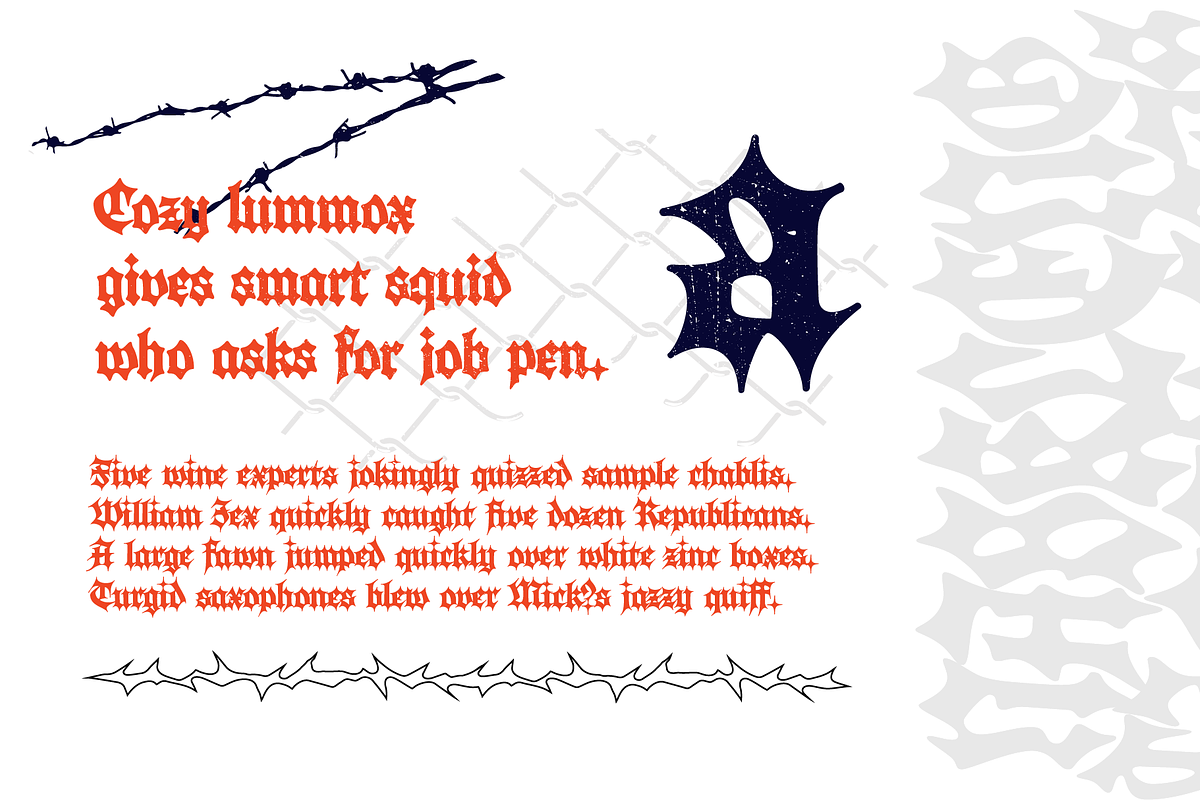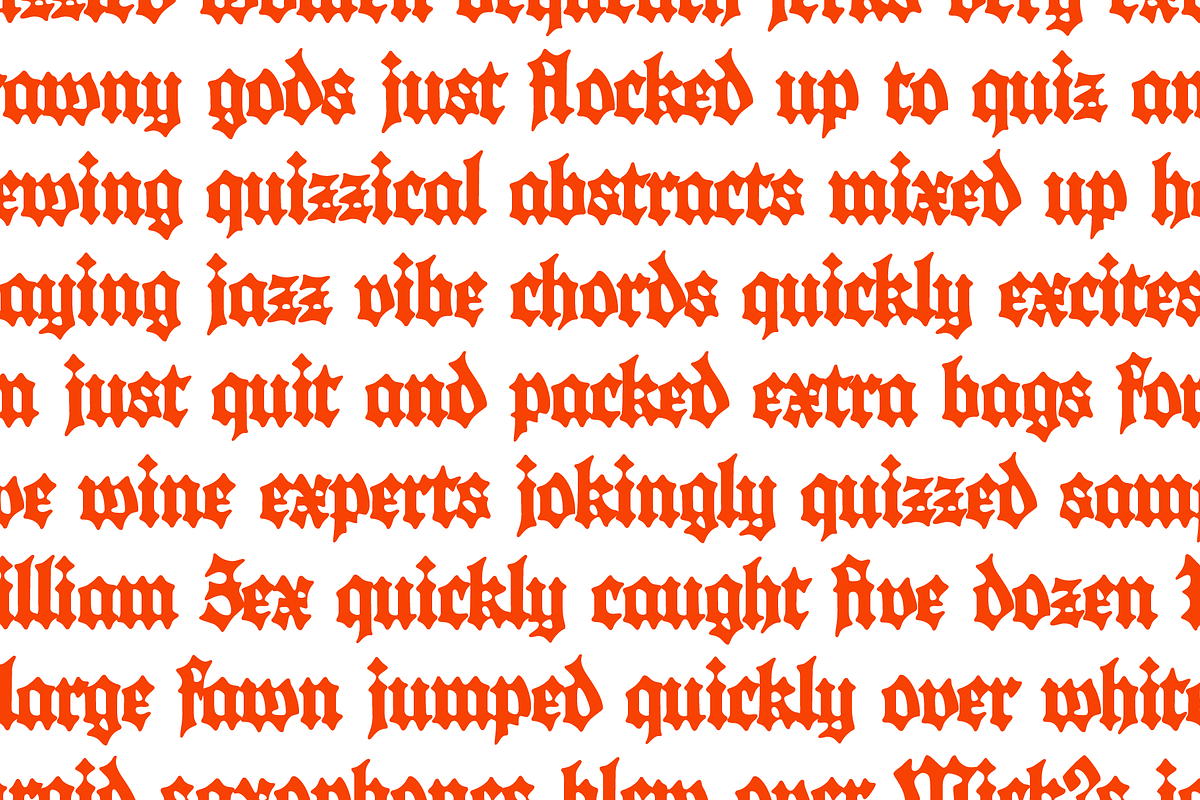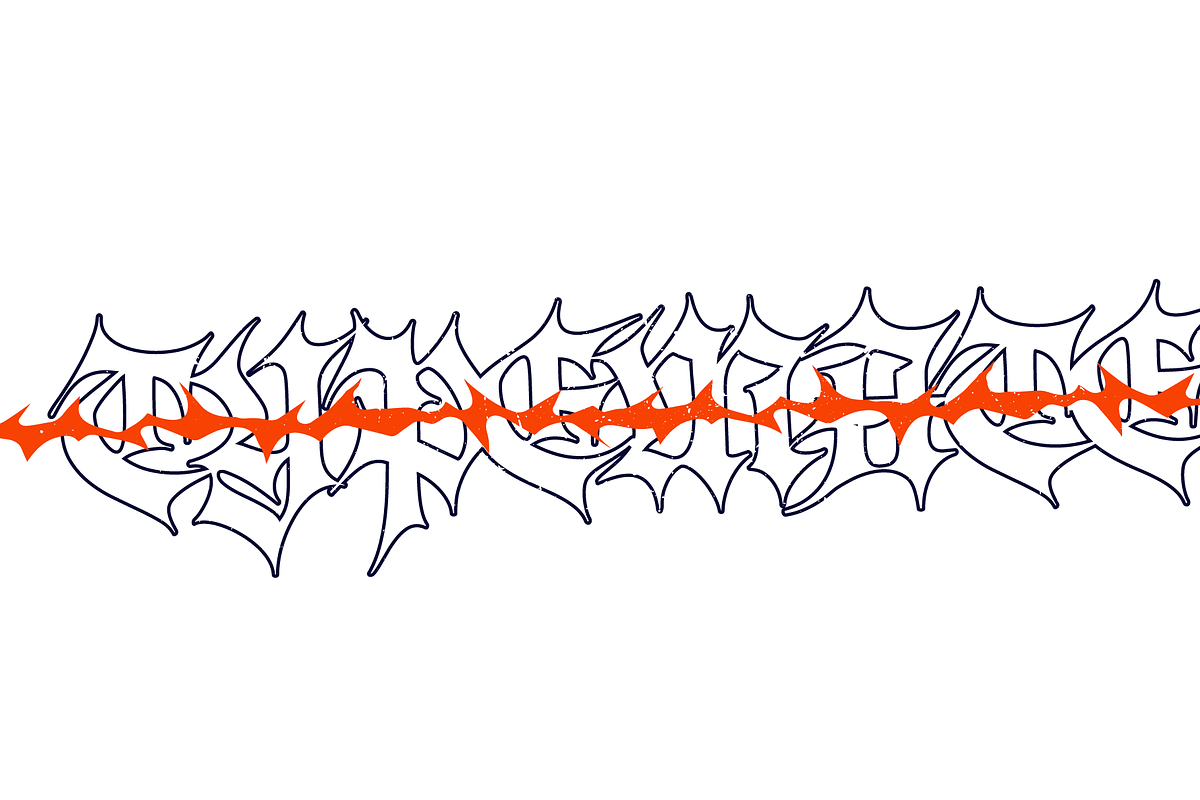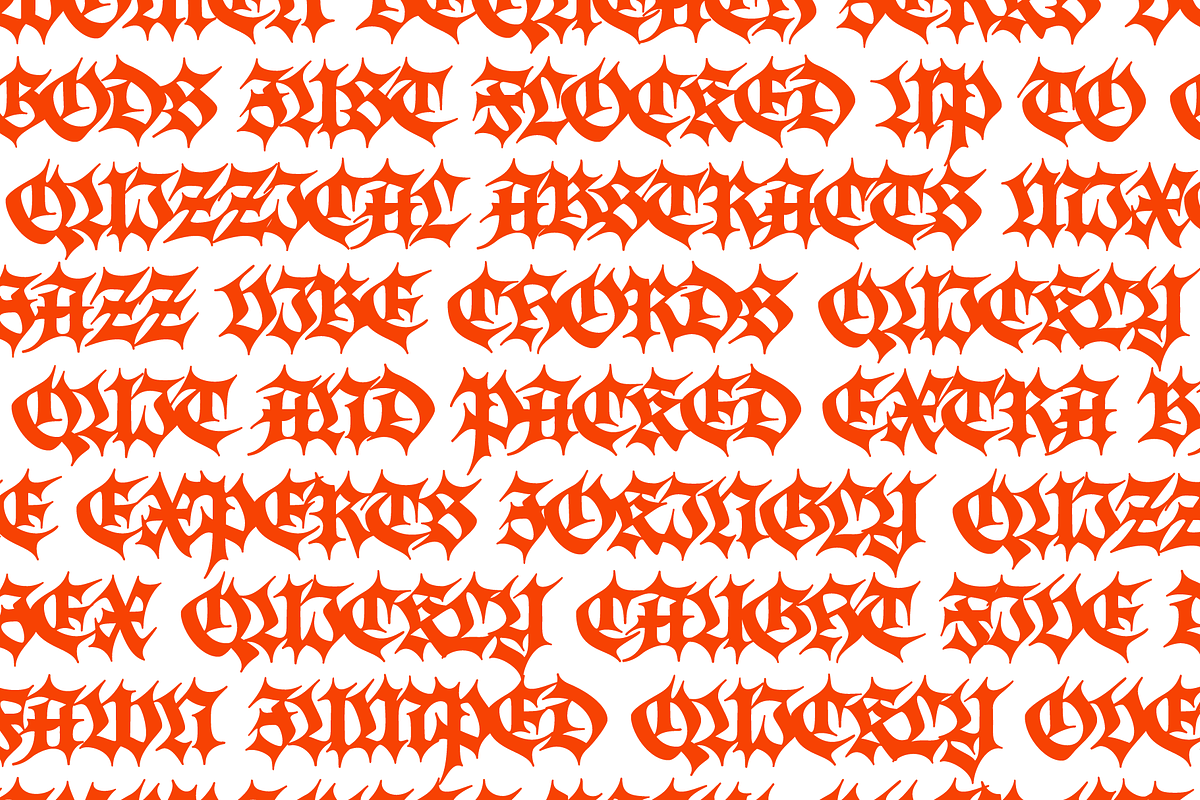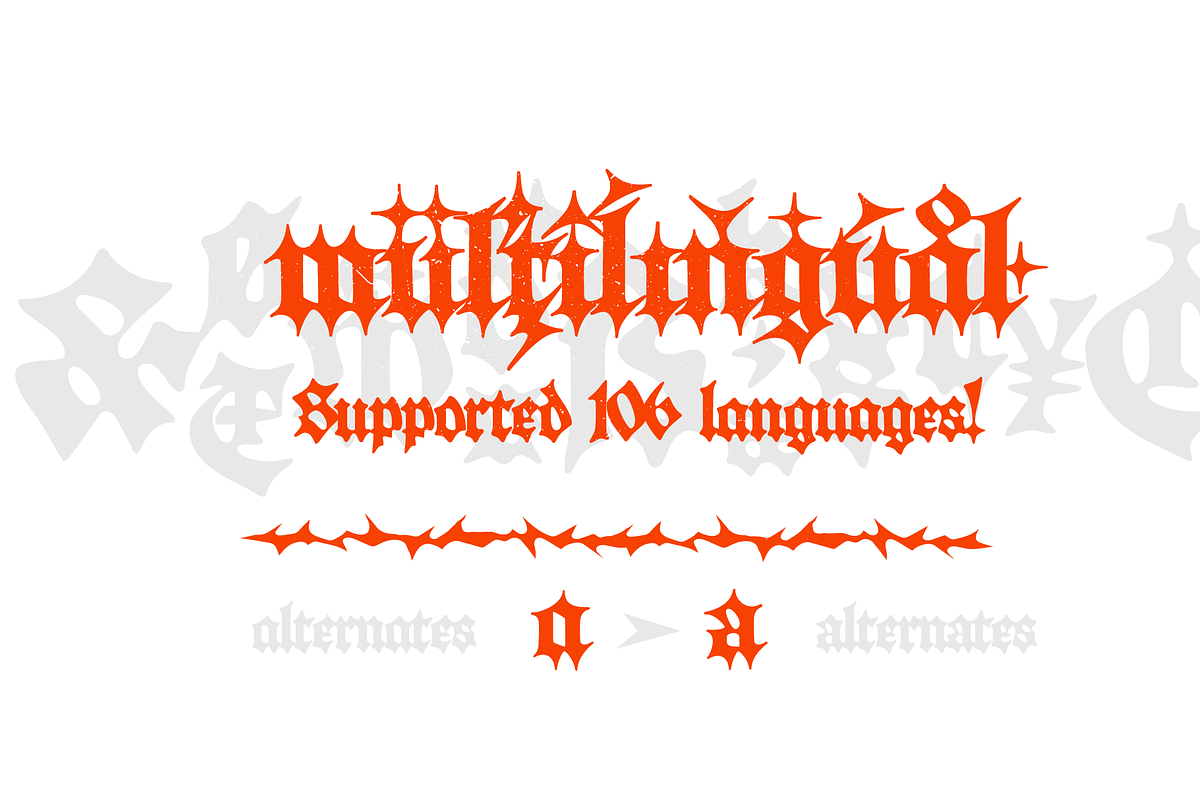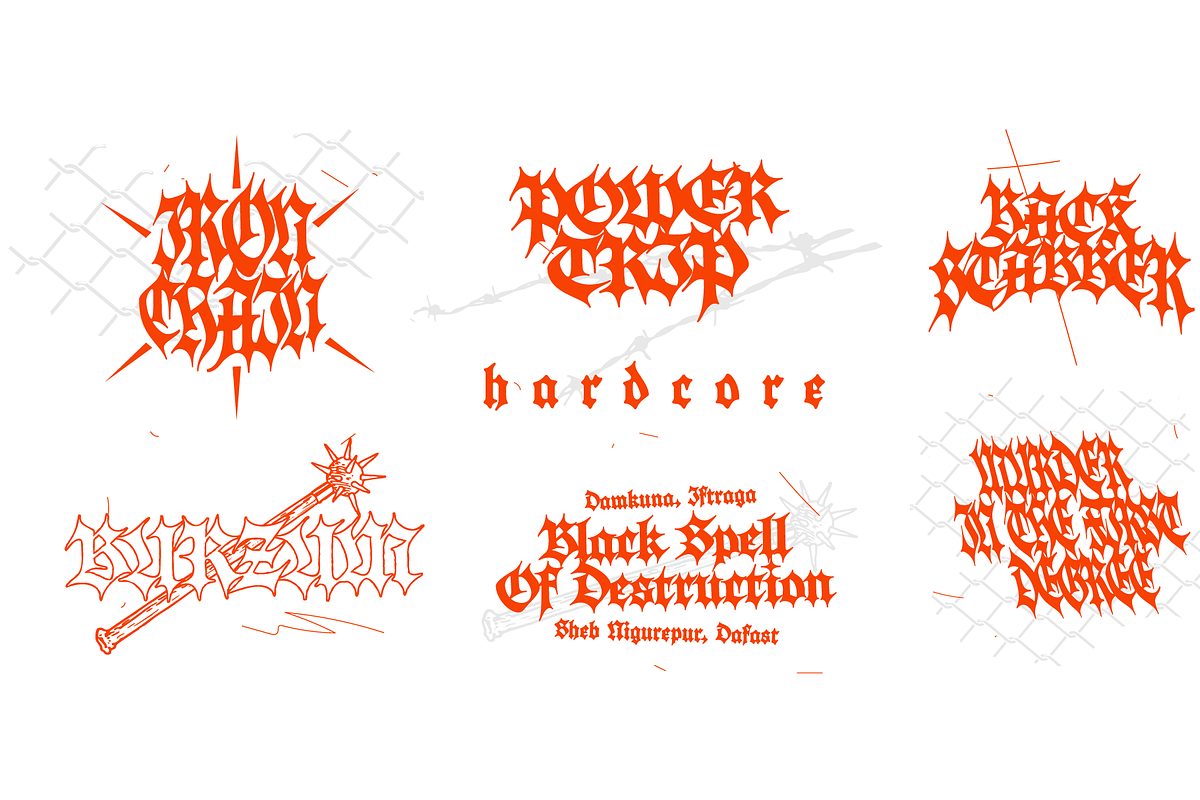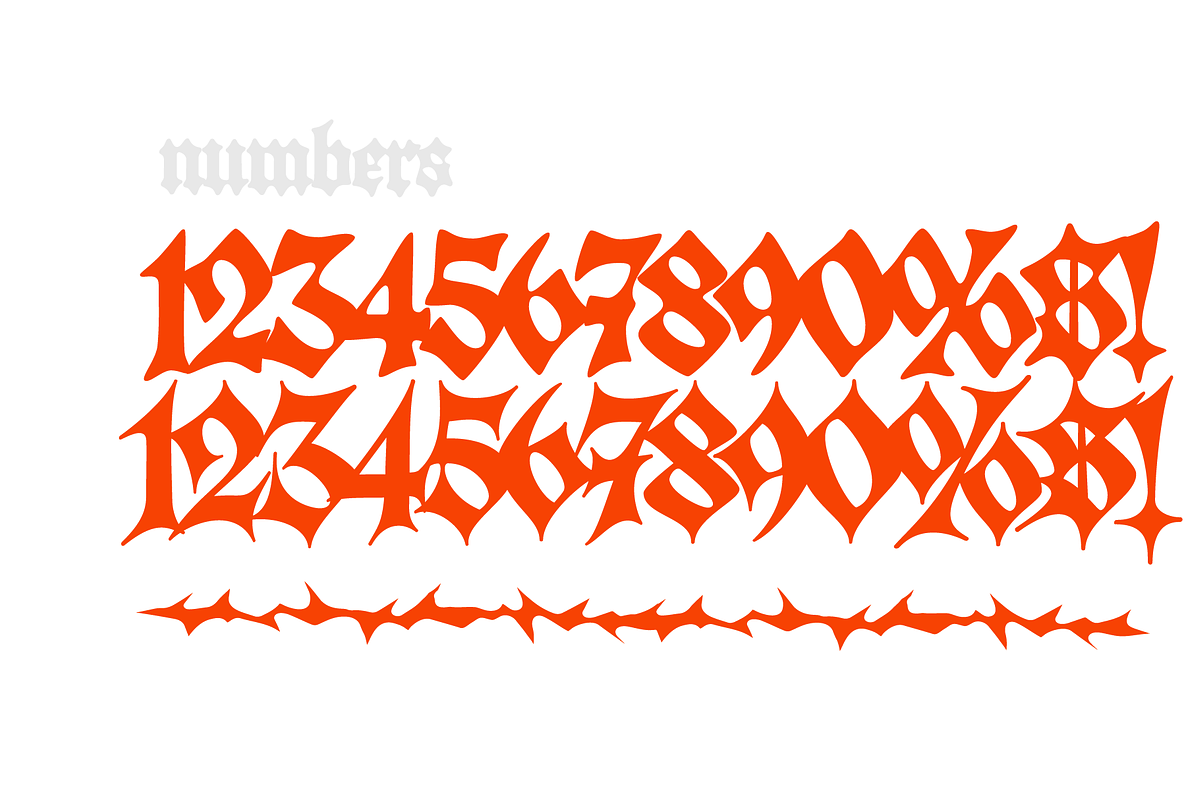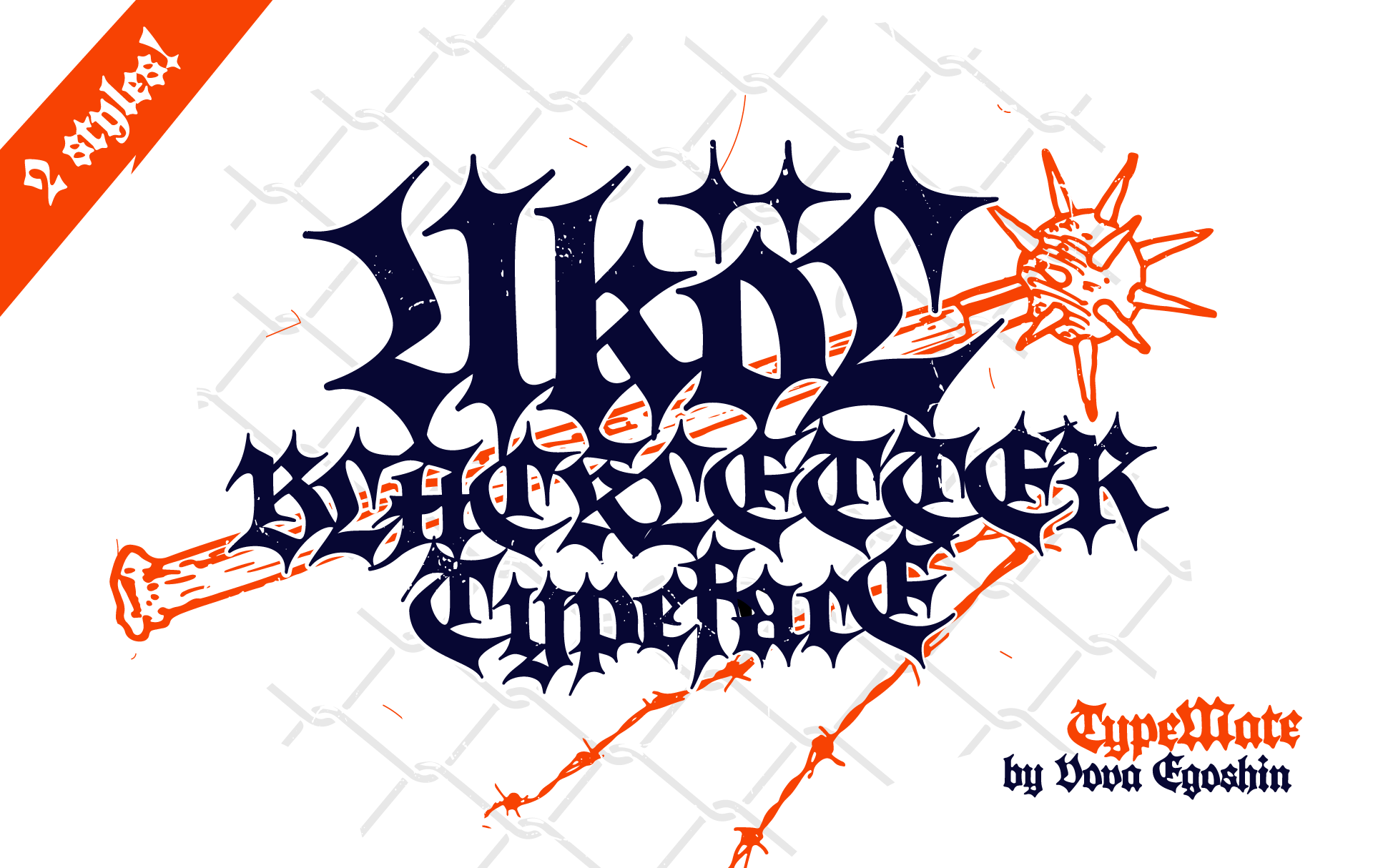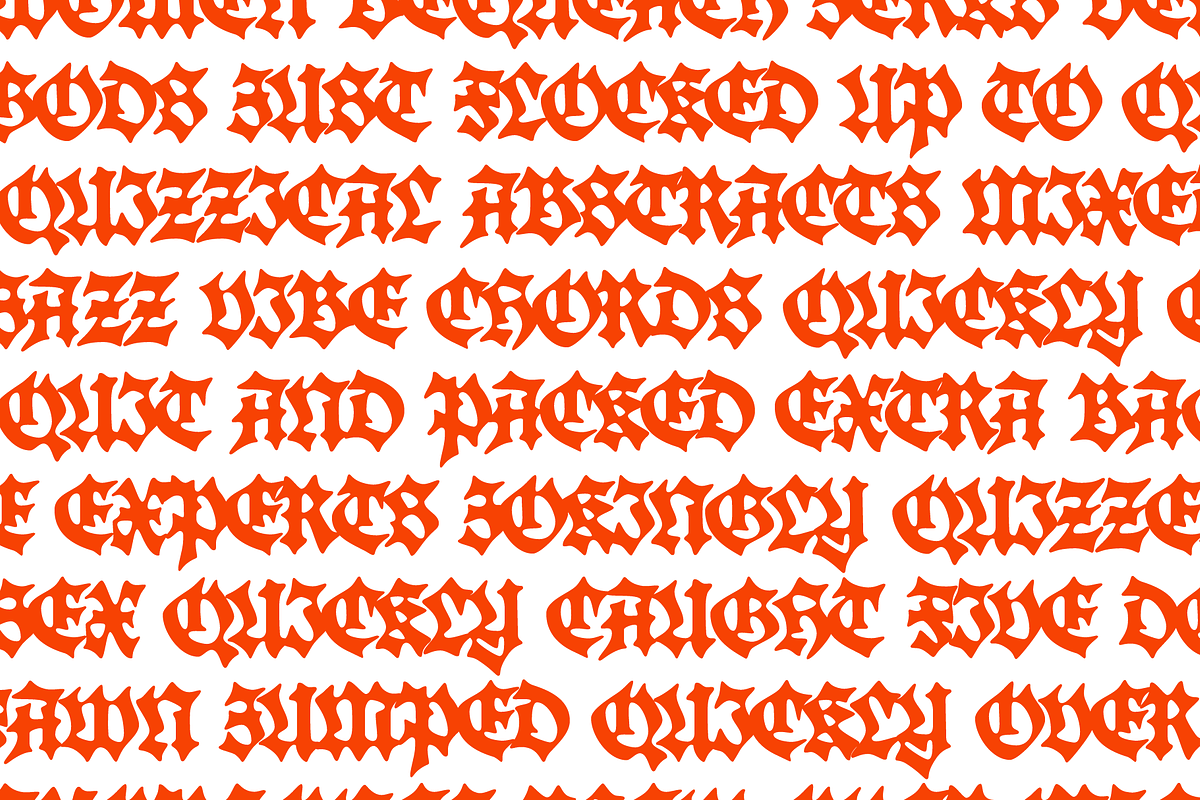
UKOL typeface
Unleash the raw power of "UKOL" a brutal blackletter gothic font inspired by the unrelenting intensity of hardcore and death metal.
This typeface captures the essence of brutal aggression and rebellious spirit. Razor-sharp edges and bold, jagged strokes that cut through the noise with unapologetic ferocity perfectly matches with melted option. "UKOL" embodies the pure, visceral energy and confrontational attitude of the hardcore scene, making it the perfect choice for designs that demand attention and exude raw, unfiltered hate.
Let "UKOL" be the voice of your most uncompromising creations.
Includes super extended lathin character set witn additional ligatures and stylistic alternates!